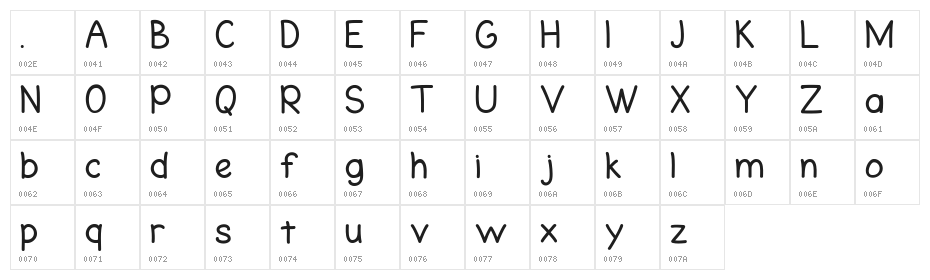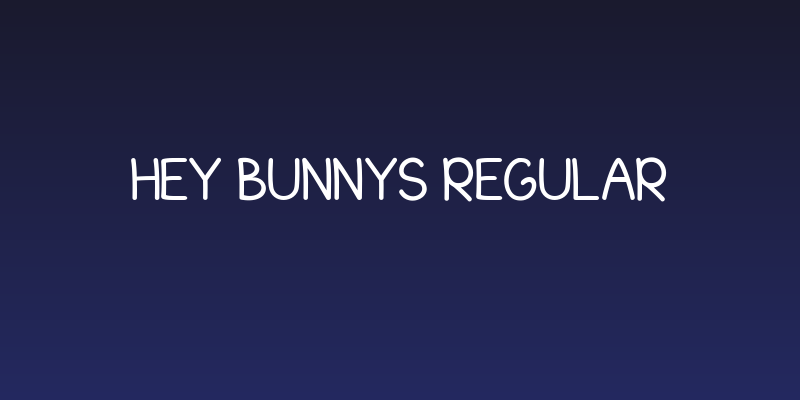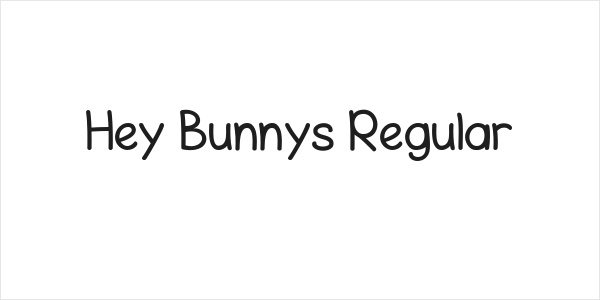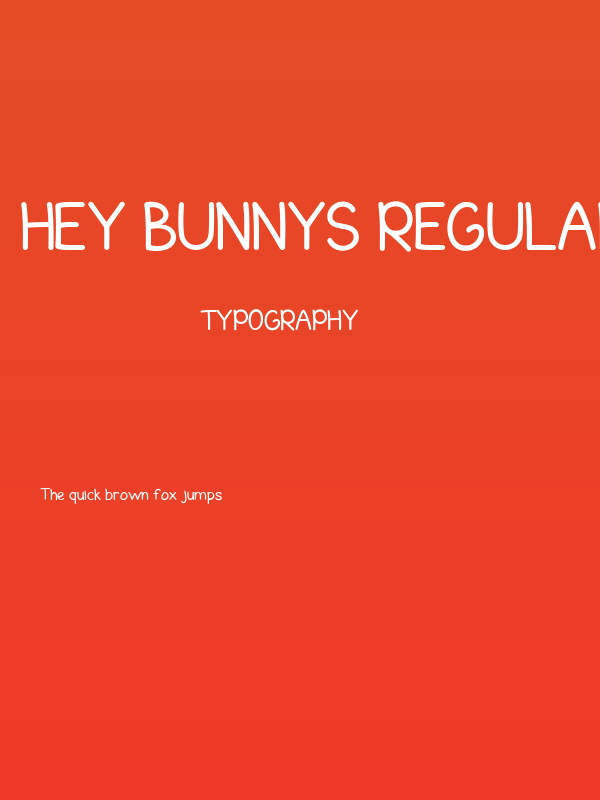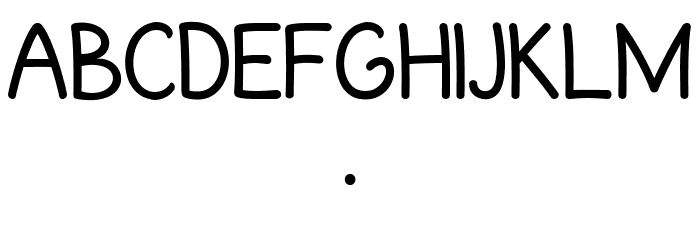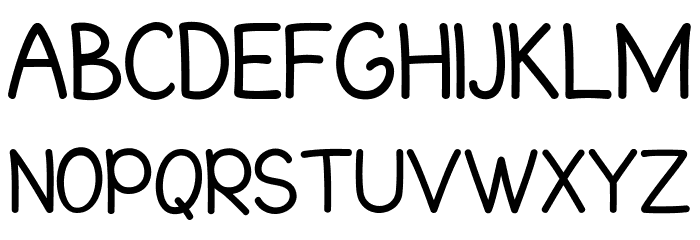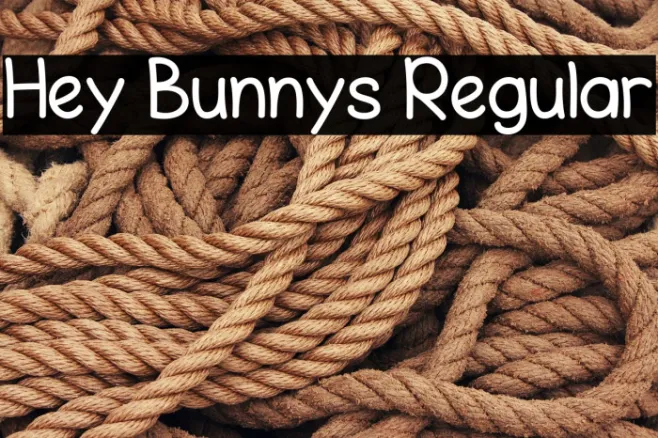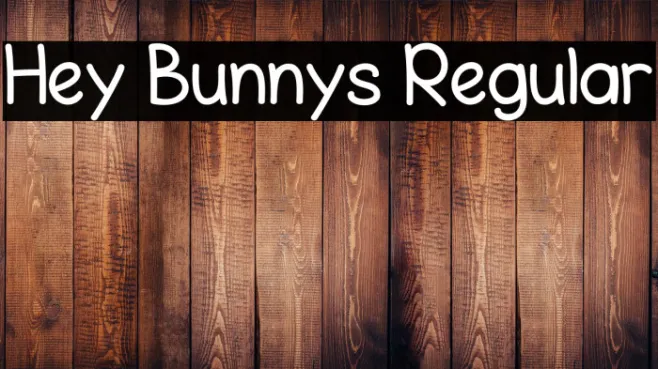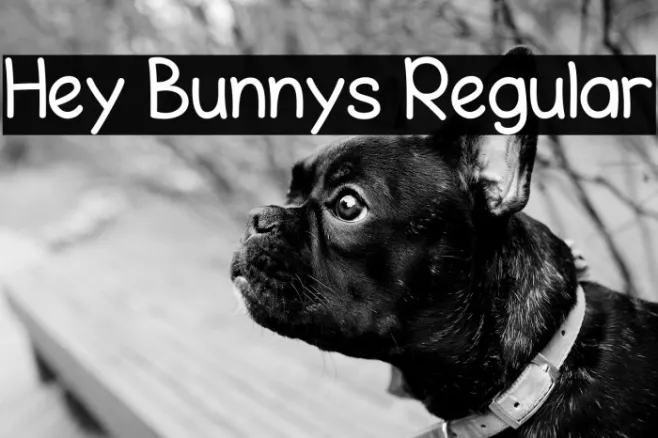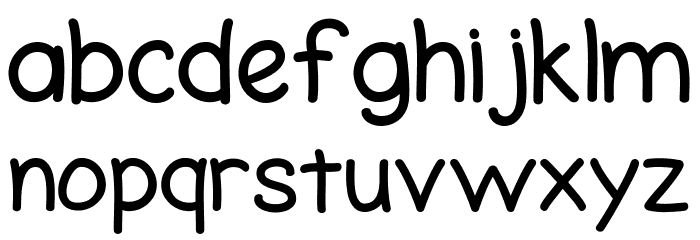
Hey Bunnys Regular Font
Hey Bunnys Regular Description
This playful and whimsical font features rounded, smooth characters that convey a friendly and approachable feel. The letters are evenly spaced with a consistent stroke width, giving it a clean and modern appearance. The font maintains a casual style, making it suitable for informal and fun projects. Its simplicity and readability make it versatile for various design applications, while the rounded edges add a touch of softness and warmth.
| Proposed Projects | Ideal for children's books, playful branding, casual invitations, and social media graphics. |